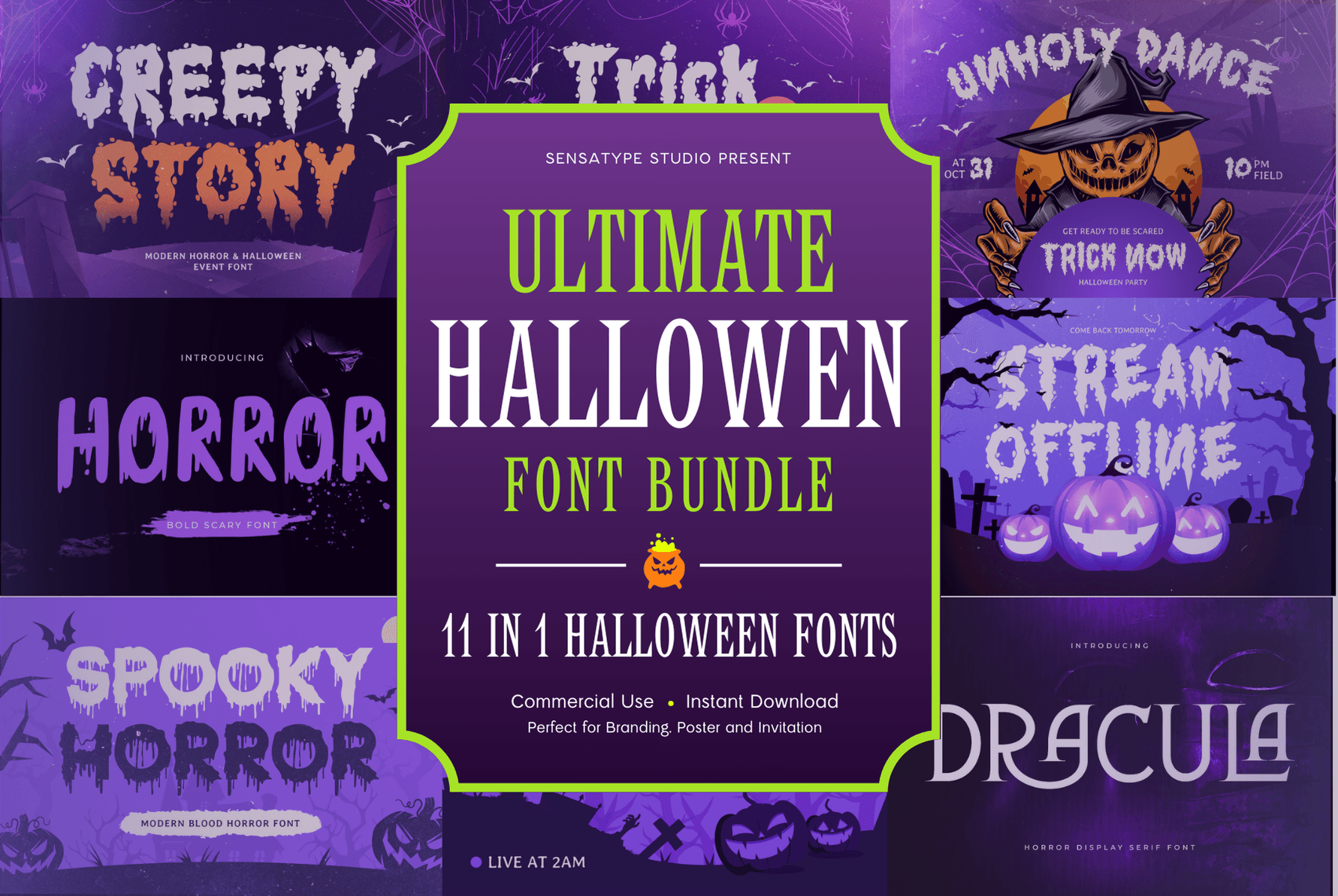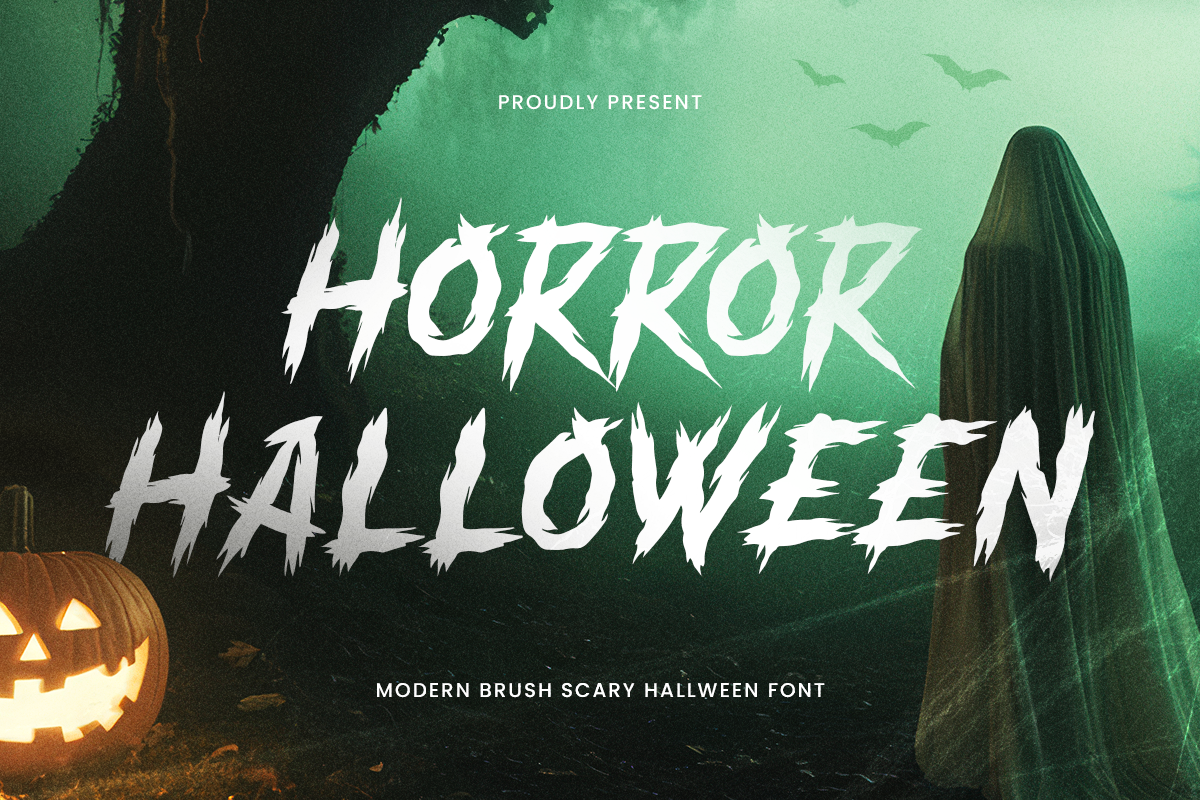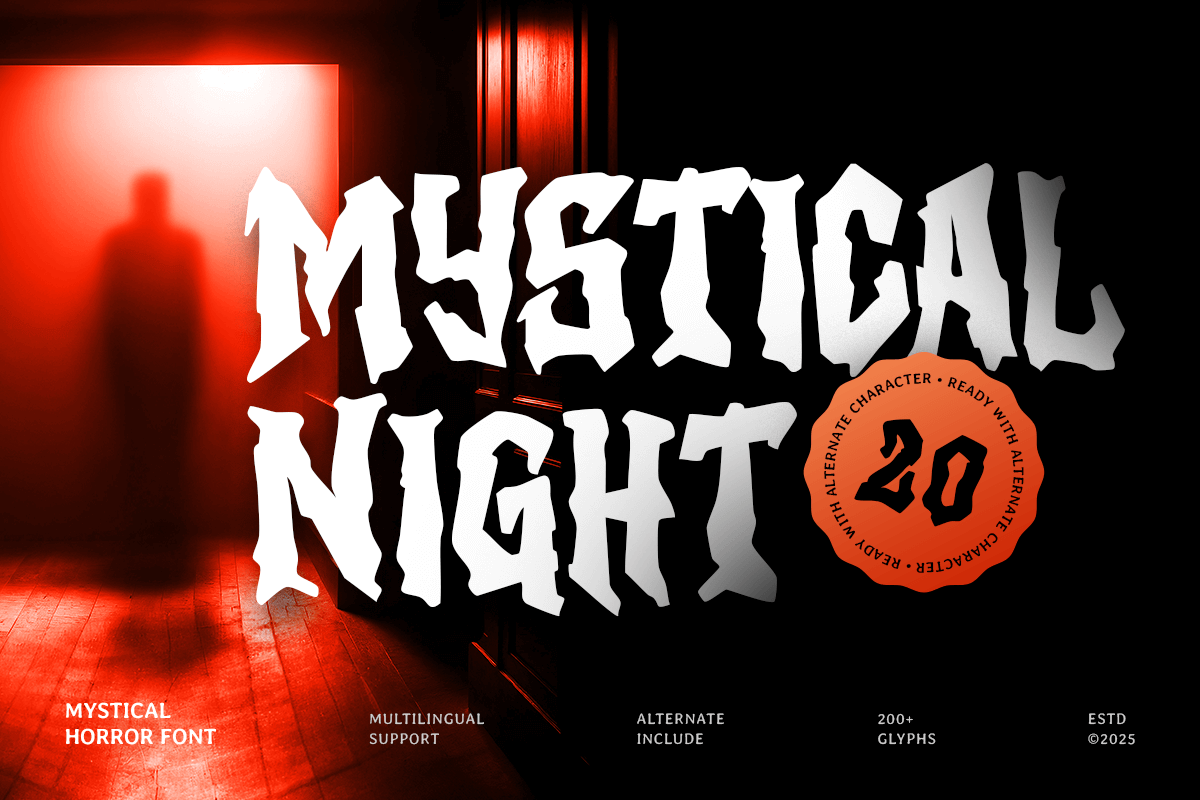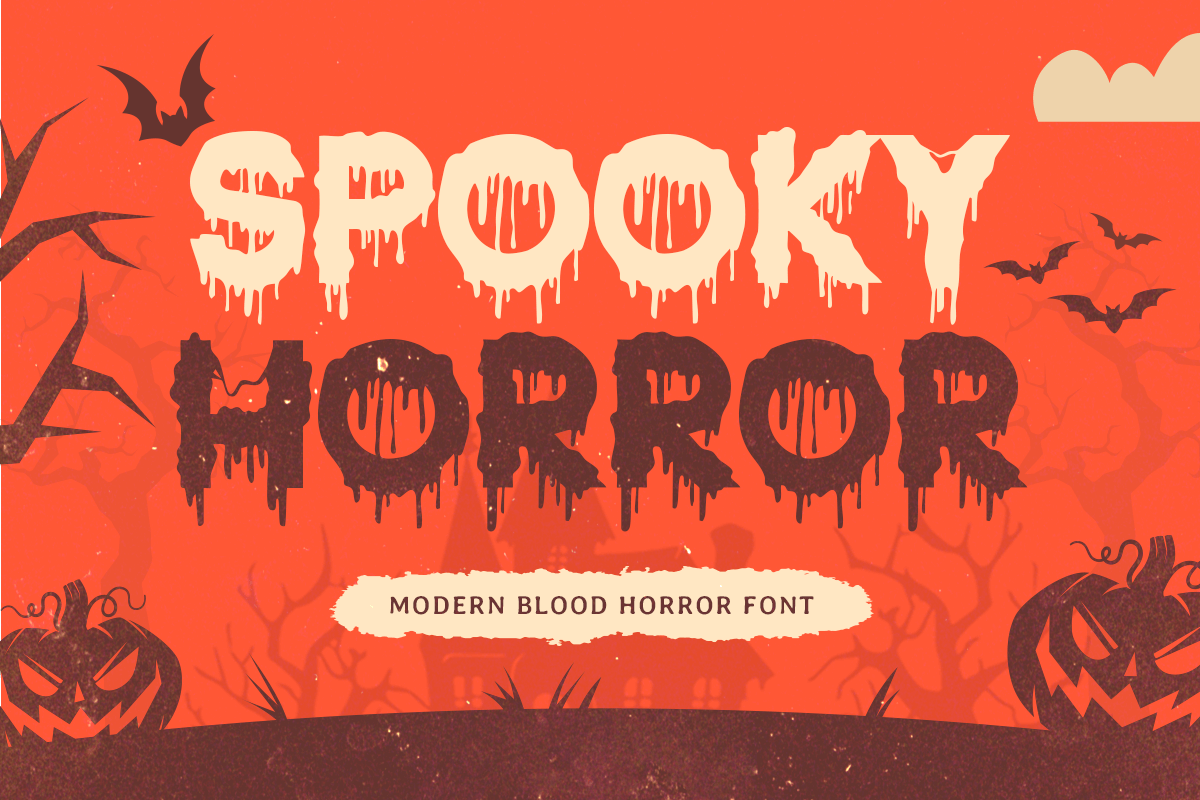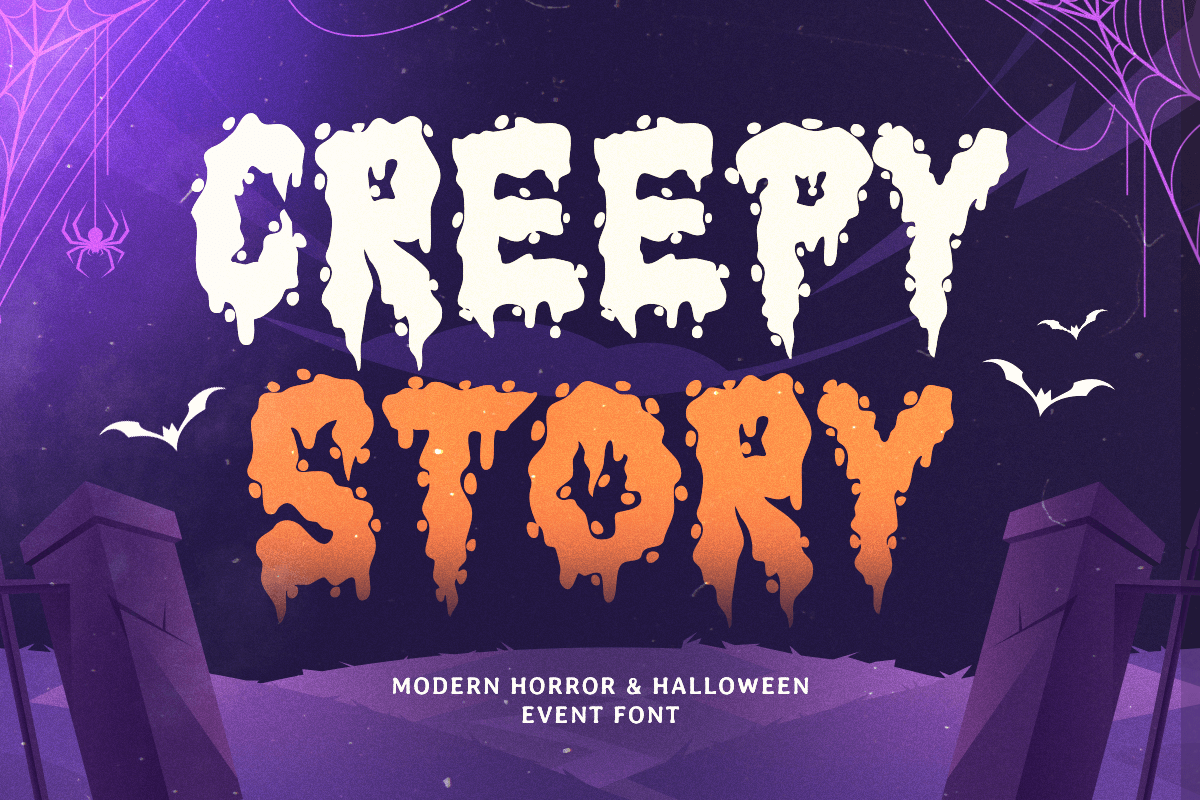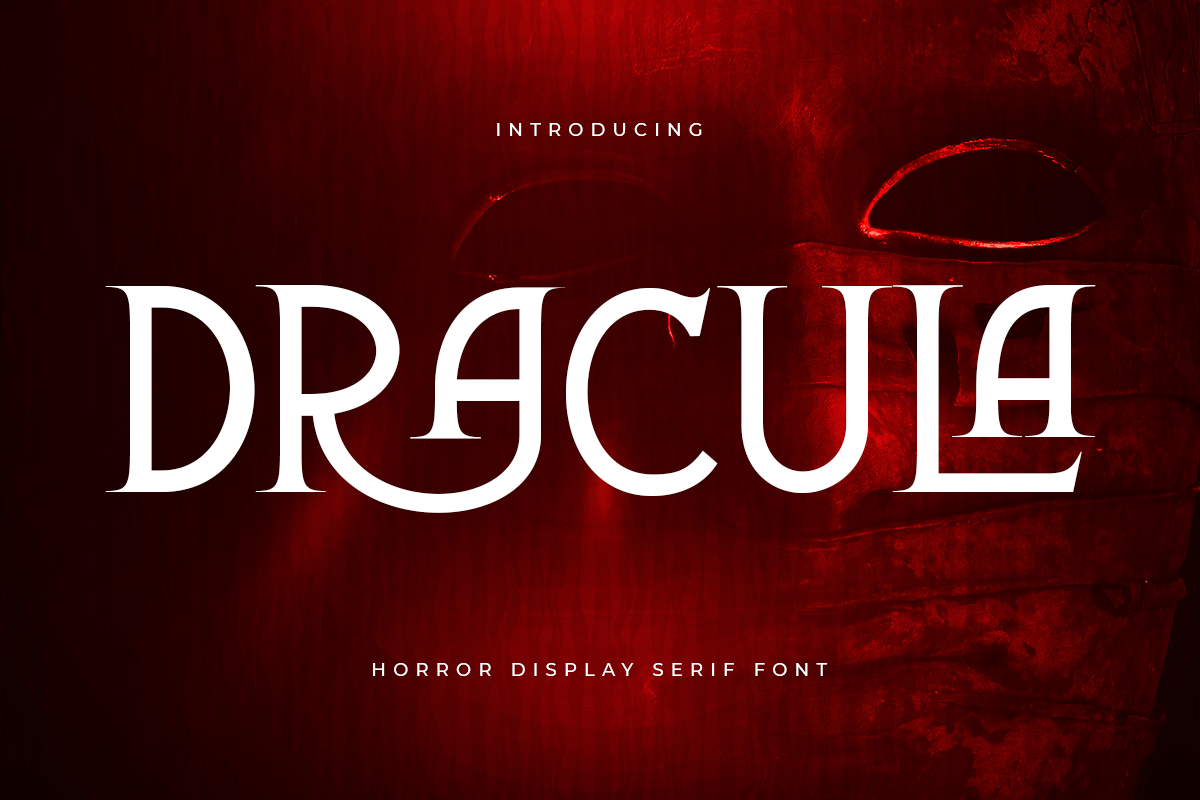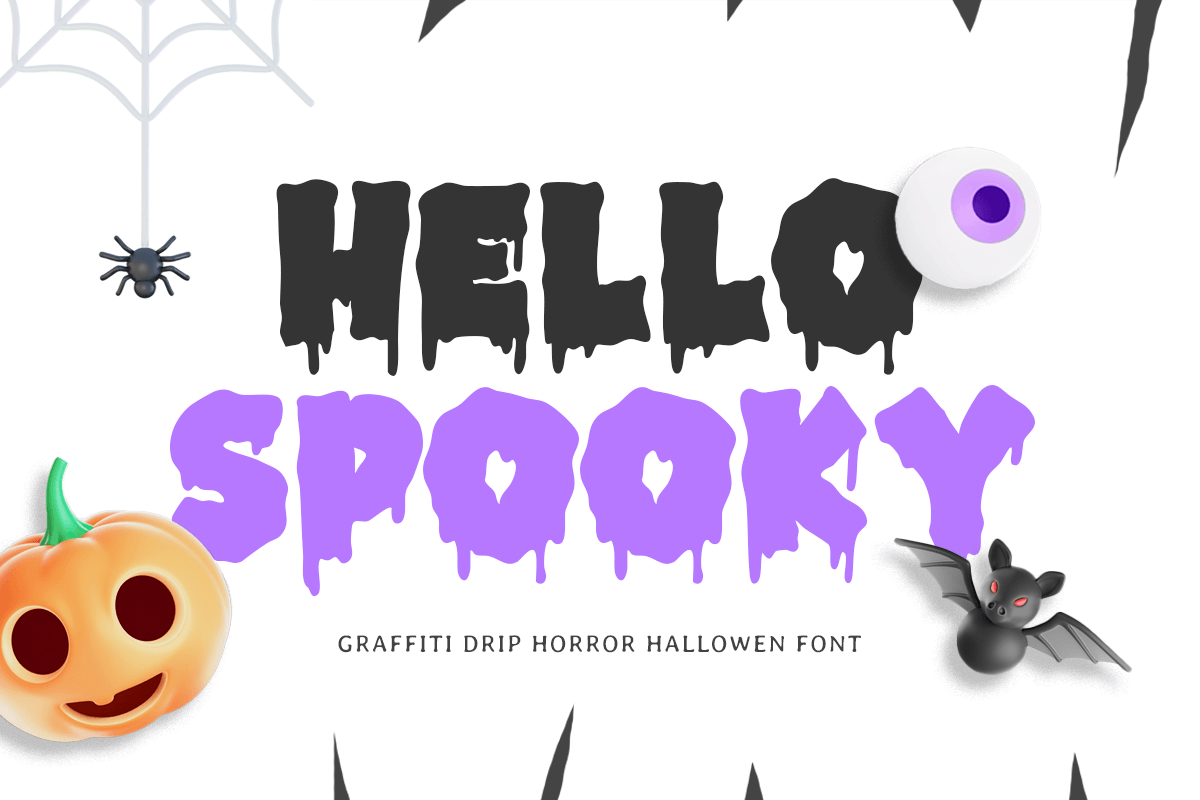
Get ready for Halloween with the Ultimate Halloween Font Bundle – 11 in 1 collection! 🎃
This bundle combines spooky brush scripts, playful decorative styles, and scary horror fonts—perfect for your seasonal projects.
✅ 11 unique Halloween fonts (playful, spooky, horror styles)
Ideal for crafters, small businesses, and designers who want to create eye-catching invitations, party decor, posters, stickers, T-shirts, and digital artwork. With 11 fonts in one pack, you’ll have endless creative options for Halloween and beyond!
What inside this bundle?
Spooky Horror
Modern Blood Horror...
Creepy Story
Display Modern Hall...
Funny Spooky
Halloween Themed Fo...
The Sider
Unique Playful Liga...
Horror
Bold Scary Font
Dracula
Horror Display Seri...
Scary History
Scary Halloween Font
BUZZER
Modern Brush Handwr...
PUMPQEEN
Halloween Hand lett...
Hello Spooky
Horror Halloween Fo...
Bromy
Bold Handwritten Fo...